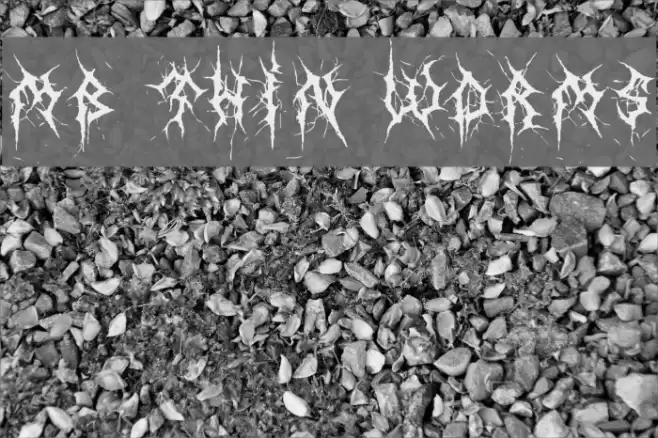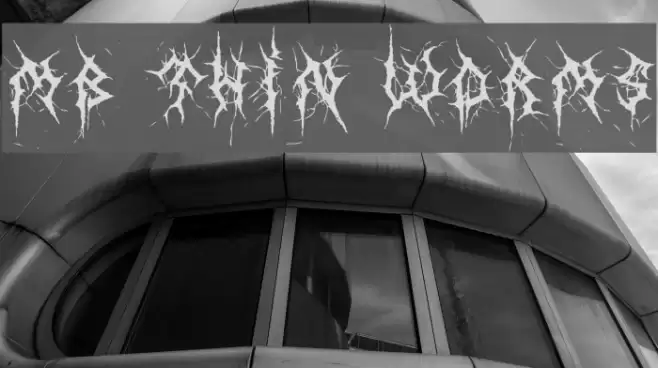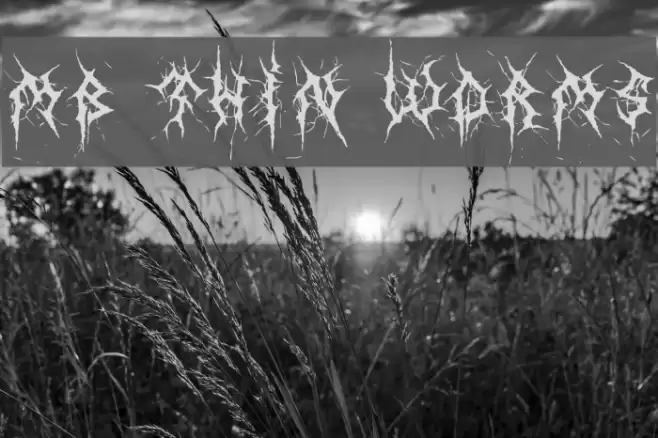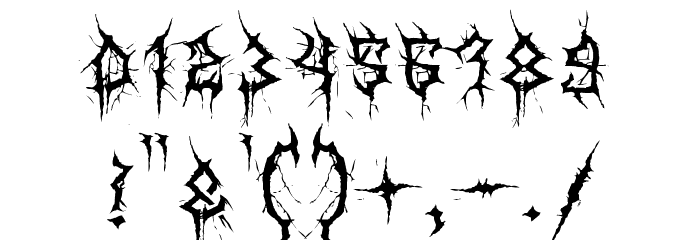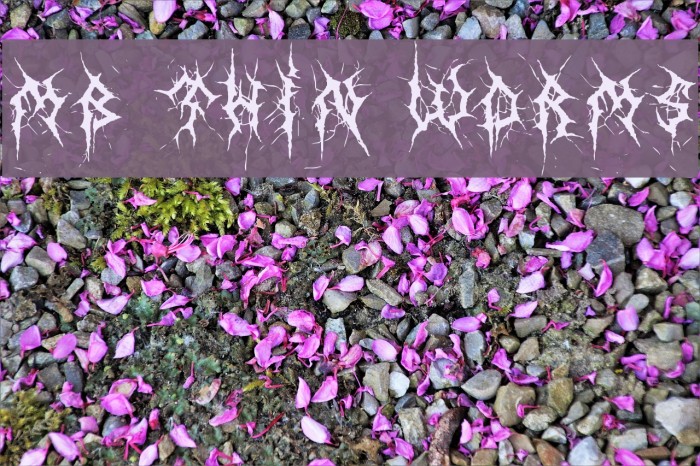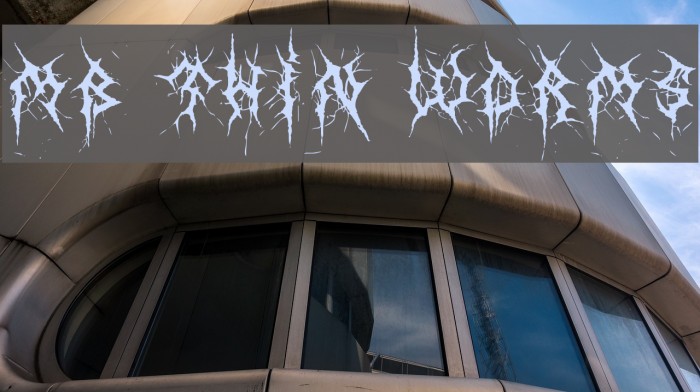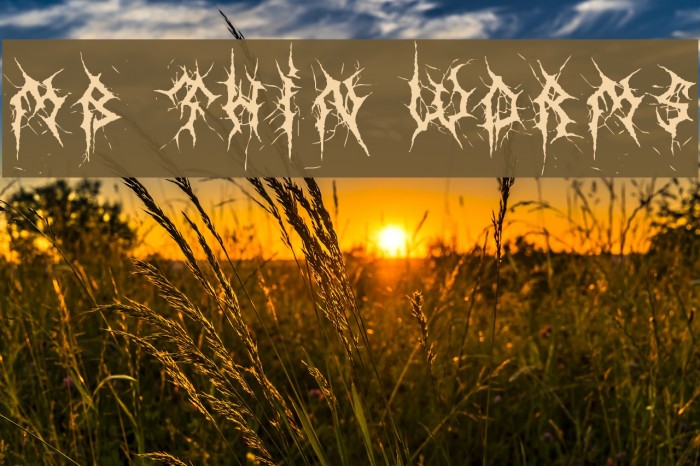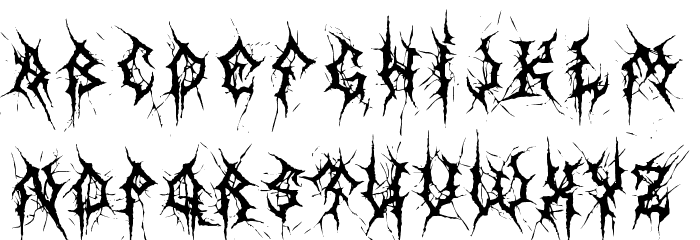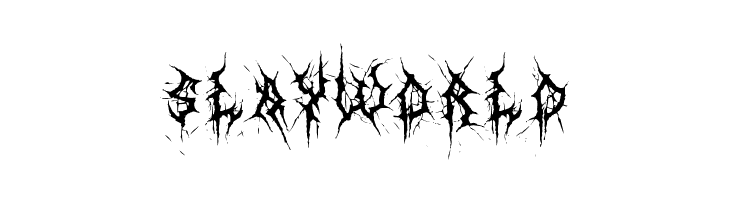
MB Thin Worms Font
MB Thin Worms Description
This font features an intricate and edgy design, characterized by sharp, thorn-like extensions that give it a chaotic and aggressive appearance. The letters are highly stylized, with each character appearing as if it is composed of tangled, spiky vines. This creates a sense of movement and intensity, making it stand out as a unique and eye-catching typeface. The complexity of the design may challenge readability at smaller sizes, but it excels in creating a dramatic visual impact. The font's dark and mysterious aesthetic makes it suitable for projects that require a bold and unconventional look.
An edgy, thorn-like font with a chaotic and aggressive style from Horror fonts.
- Proposed Projects: Ideal for album covers, horror-themed posters, or any project needing a bold, dramatic impact.
- Character Spacing: Tight
- Use Case: Logos, Headlines